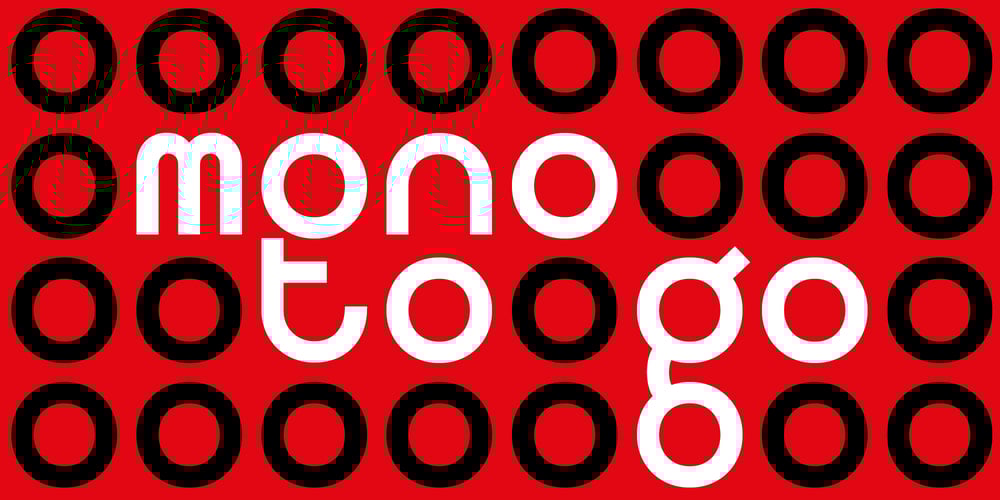
Mono To Go Font Family was designed by Erwin K. Bauer, Mischa Herzog, Daniel Schaffer and published by buero bauer. Mono To Go contains 1 styles and family package options. Mono To Go is a monospace typeface with a constructed, grid-based body and a playful and quirky spirit. Built from circles and other simple geometric shapes, it sees itself as a contemporary interpretation of the early, consistently reduced typefaces of modernism. With its modular concept, the typeface invites you to “build” individually combined word pictures. Depending on your preference for the type of composition, stylistic alternatives and open typeface features offer you a wide range of possibilities.The rhythm of the glyphs and their distinctive ascenders and descenders give the typeface a confident character for bold designs. The typeface works best in larger sizes, e.g. for brands, poster and cover designs, film titles, exhibition displays or generally for striking headlines. The character set contains 600 glyphs, including full language support for Western, Central and Eastern Europe, digits and oldstyle figures, punctuation, currency and mathematical symbols, and the entire set as small caps.mono to go was designed by buero bauer (2019–2021). Special thanks to Franziska Weitgruber for her support.